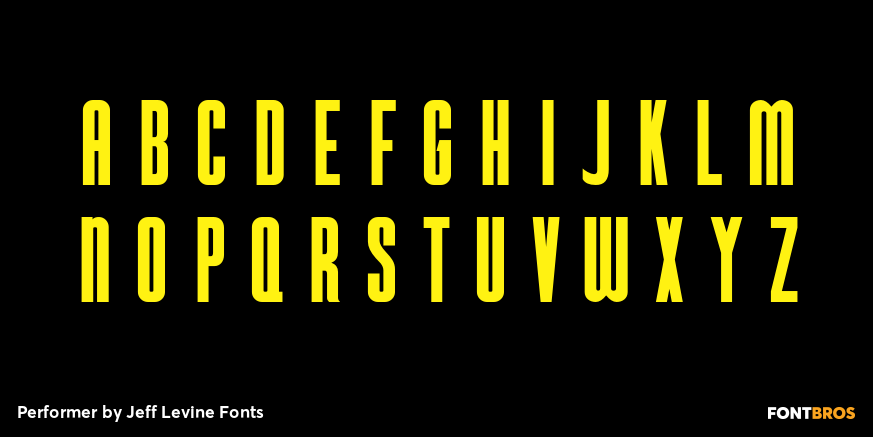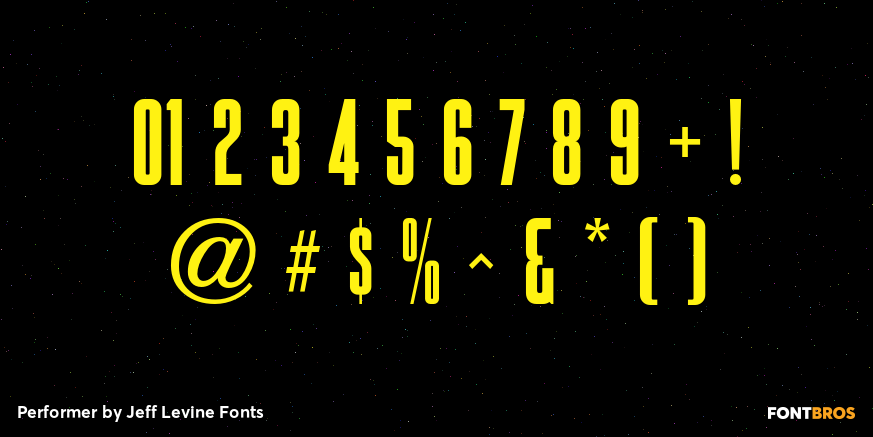
Performer
Performer JNL, is a typeface re-drawn from condensed hand lettering found on a piece of vintage sheet music. Fairly basic in style, there are still some hints of the Art Deco influence that permeated the 1930s and 1940s art, design and typography.
Available in both regular and oblique versions.